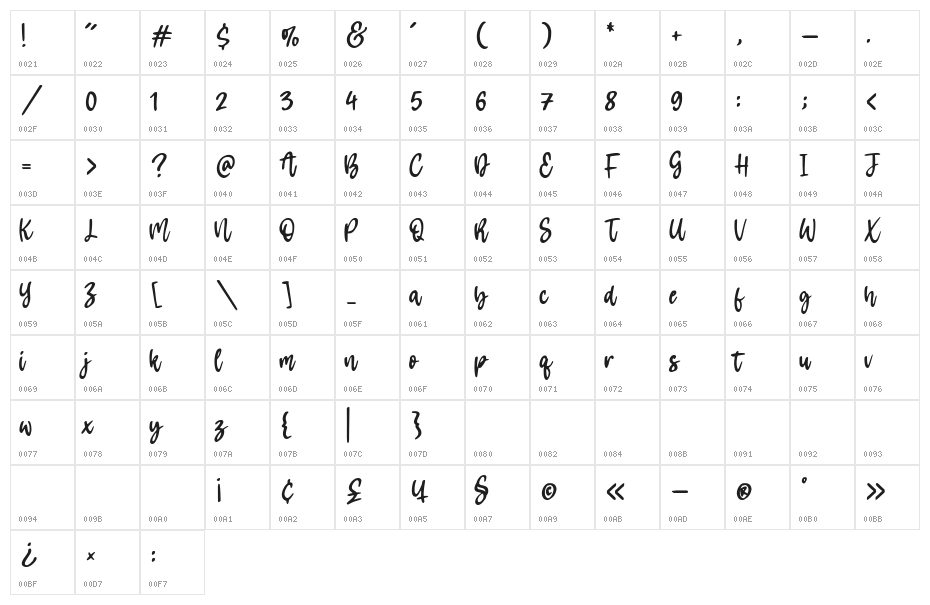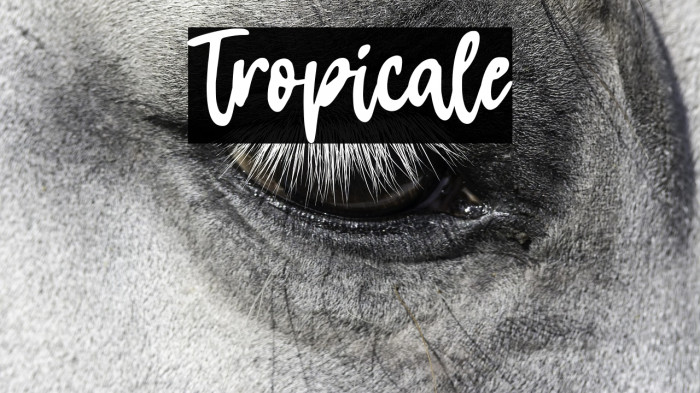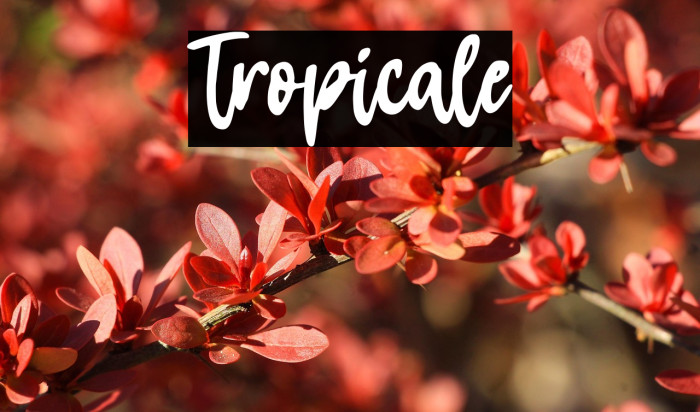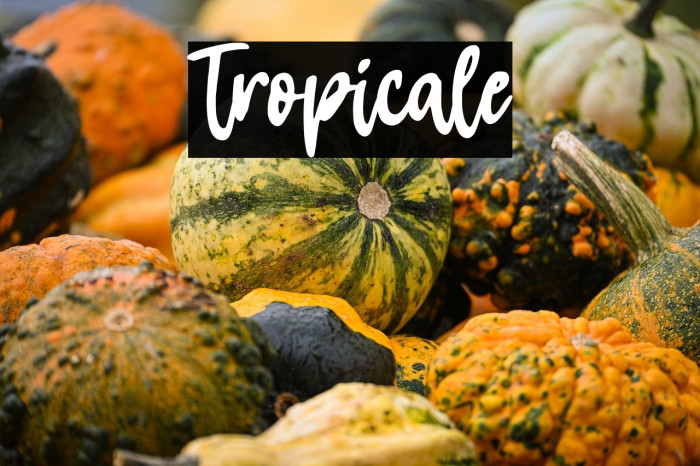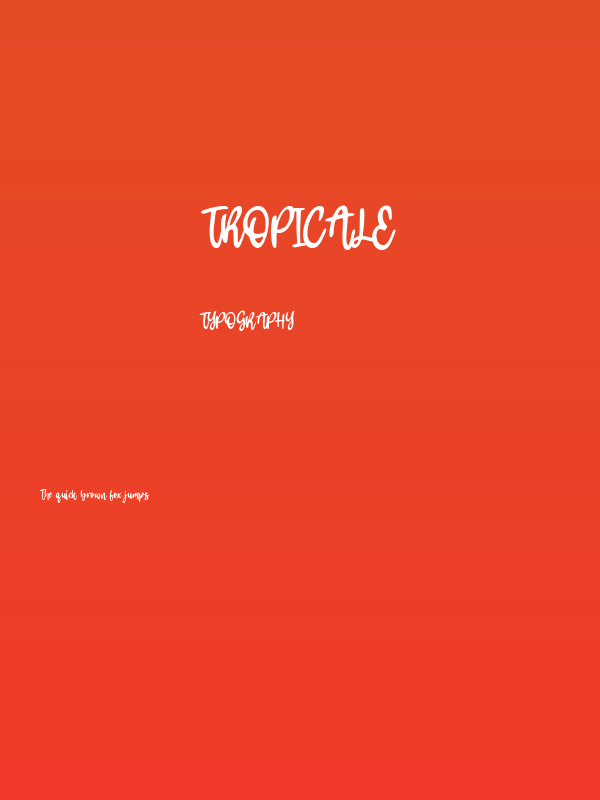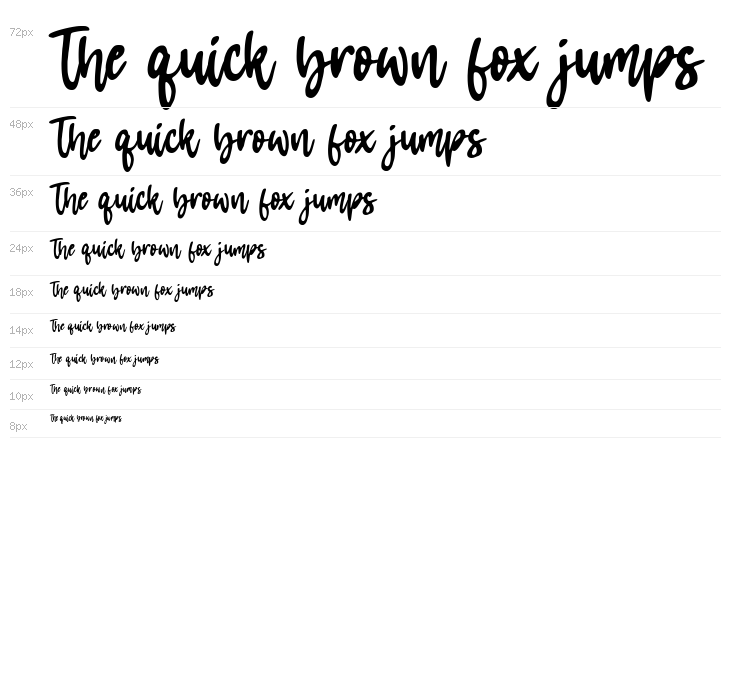
Tropicale Font
Tropicale Description
This font features a lively and energetic script style, characterized by its bold, flowing strokes and playful curves. The uppercase letters exhibit a dynamic presence with their sweeping lines and rounded forms, while the lowercase letters maintain a consistent rhythm, enhancing readability. The numerals are crafted with a similar flair, ensuring they complement the overall aesthetic. Special characters are thoughtfully designed to match the font's whimsical nature, making it suitable for creative and expressive projects. Its hand-drawn appearance adds a personal touch, making it ideal for designs that require a friendly and approachable feel.